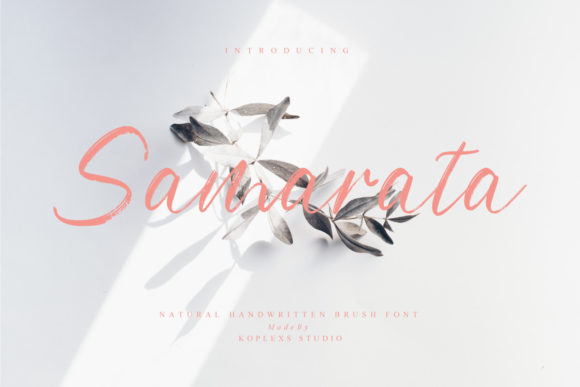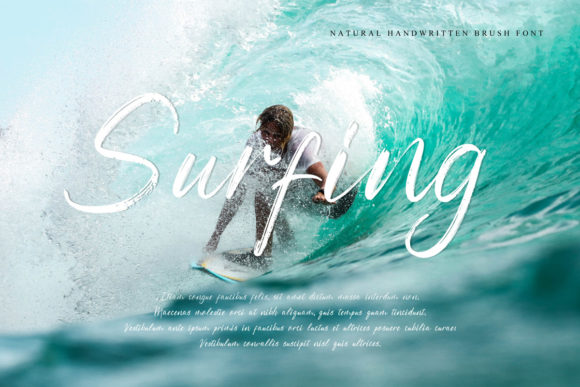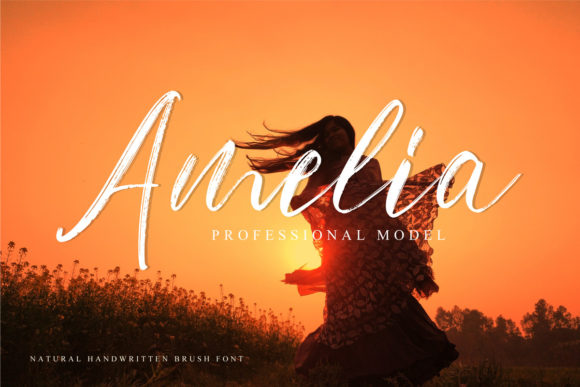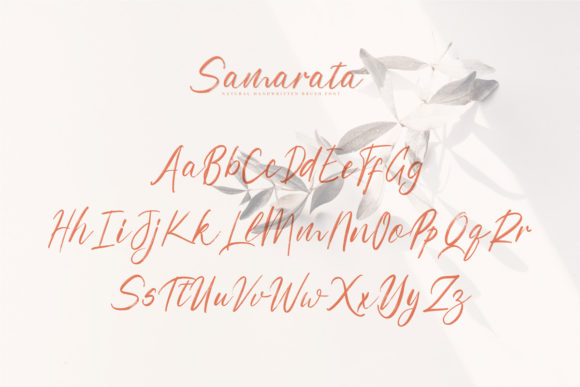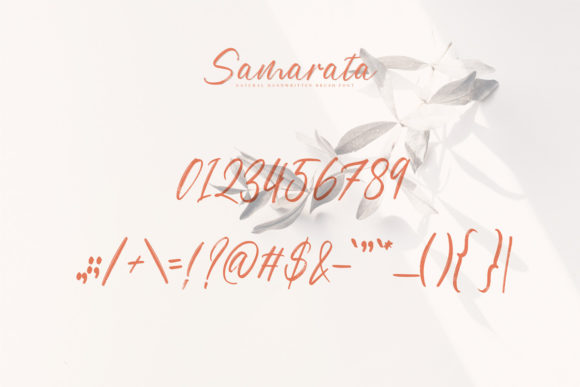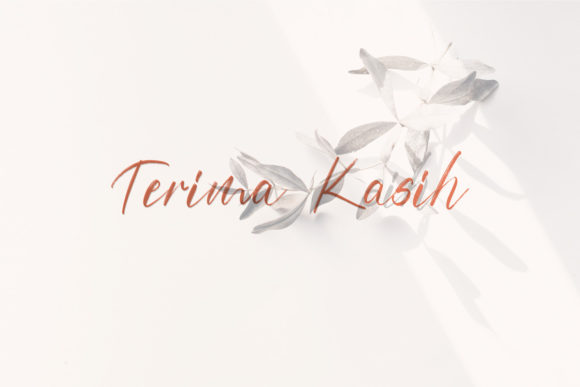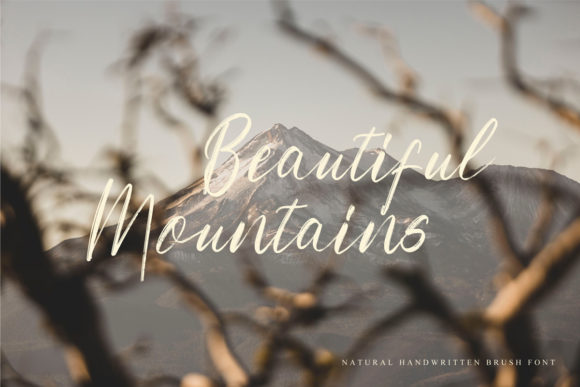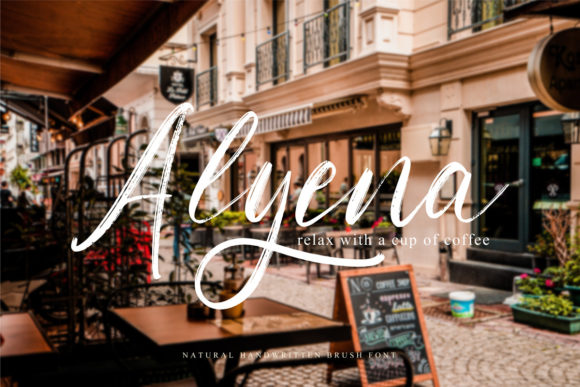
Samarata Font
About Samarata Font
Samarata is a gorgeous and beautiful script font. This font reads as strong, confident, and dynamic and can add tons of stylish character to your designs.